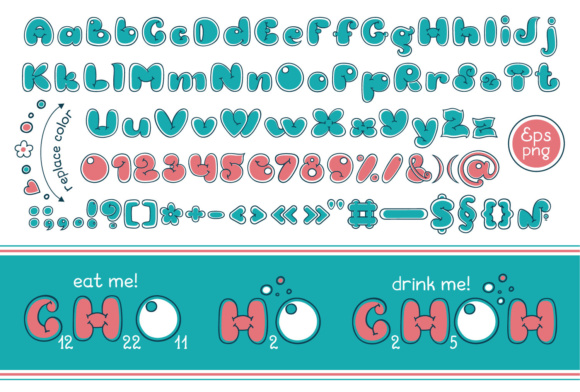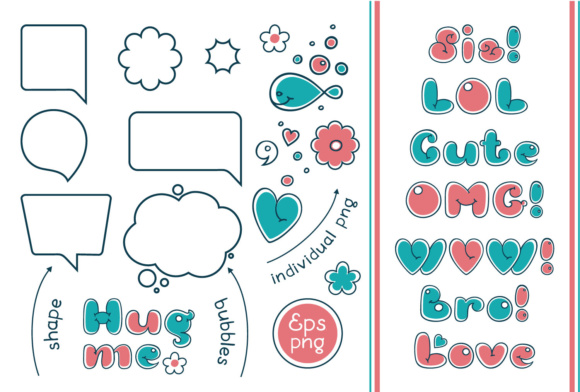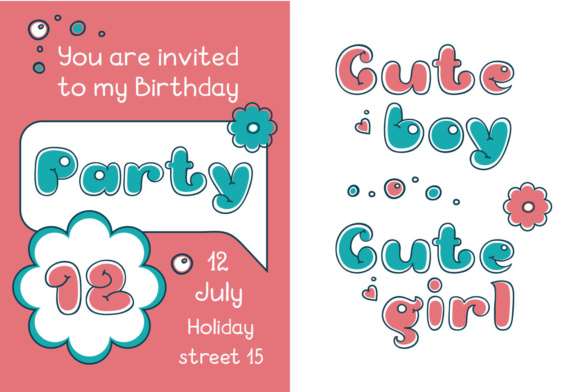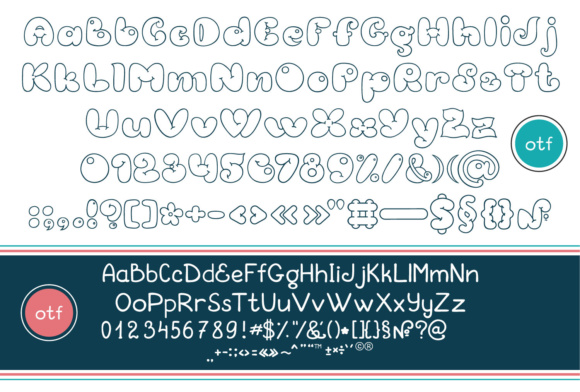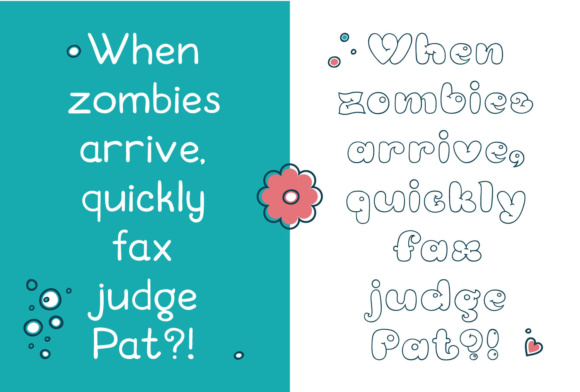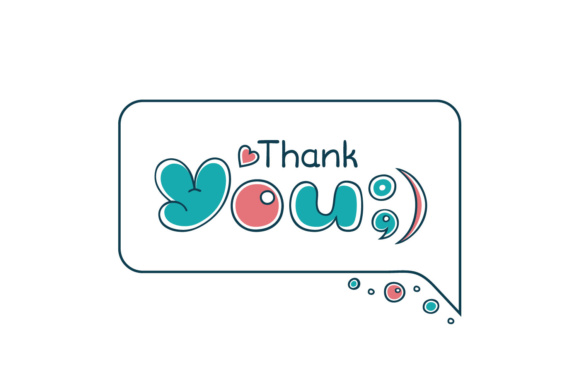
Bubble Double Duo Font: Add a Playful Touch to Your Designs
Are you looking for a font that can add a playful and comic touch to your designs? Look no further than the Bubble Double Duo Font! This cartoonish font duo is perfect for designers and crafters who want to create fun and engaging content for kids and adults alike. In this article, we’ll take a closer look at the Bubble Double Duo Font, its features, and how you can use it to elevate your designs.
What is Bubble Double Duo Font?
Bubble Double Duo Font is a font duo that consists of two versions: regular and light. Both versions have a fun and comic feel, making them perfect for designs that require a playful touch. The font is designed to look like a cartoonish bubble font, with rounded edges and a soft, friendly feel.
Key Features of Bubble Double Duo Font
- Cartoonish design: The Bubble Double Duo Font has a cartoonish design that is perfect for kids’ illustrations, comics, and other fun designs.
- Two font versions: The font duo comes with two versions: regular and light. This allows you to choose the one that best fits your design needs.
- Fun and comic feel: Both font versions have a fun and comic feel that is sure to add a playful touch to your designs.
- Versatile: The Bubble Double Duo Font is perfect for a wide range of designs, including kids’ illustrations, websites, posters, comics, banners, and more.
Uses of Bubble Double Duo Font
The Bubble Double Duo Font is a versatile font that can be used for a wide range of designs. Here are some ideas to get you started:
- Kids’ illustrations: The font’s cartoonish design and playful feel make it perfect for kids’ illustrations, such as children’s books, nursery rhymes, and educational materials.
- Websites: Add a playful touch to your website with the Bubble Double Duo Font. It’s perfect for websites that cater to kids or have a fun and playful theme.
- Posters: Create eye-catching posters with the Bubble Double Duo Font. It’s perfect for promoting events, products, or services in a fun and playful way.
- Comics: The font’s comic feel makes it perfect for comics, graphic novels, and other sequential art.
- Banners: Add a playful touch to your banners with the Bubble Double Duo Font. It’s perfect for creating fun and engaging banners for events, promotions, or sales.
Tips for Using Bubble Double Duo Font
Here are some tips for using the Bubble Double Duo Font:
- Use it for headings: The Bubble Double Duo Font is perfect for headings and titles. Use it to add a playful touch to your design.
- Pair it with other fonts: Experiment with pairing the Bubble Double Duo Font with other fonts to create a unique and interesting design.
- Use it for body text: While the font is perfect for headings, it can also be used for body text. Use the light version for longer blocks of text.
- Experiment with colors: The Bubble Double Duo Font looks great in bright, bold colors. Experiment with different colors to add a playful touch to your design.
The Bubble Double Duo Font is a fun and playful font duo that is perfect for designers and crafters who want to add a playful touch to their designs. With its cartoonish design, two font versions, and versatile uses, it’s a great addition to any design collection. Whether you’re creating kids’ illustrations, websites, posters, comics, or banners, the Bubble Double Duo Font is sure to bring a smile to your audience’s face.